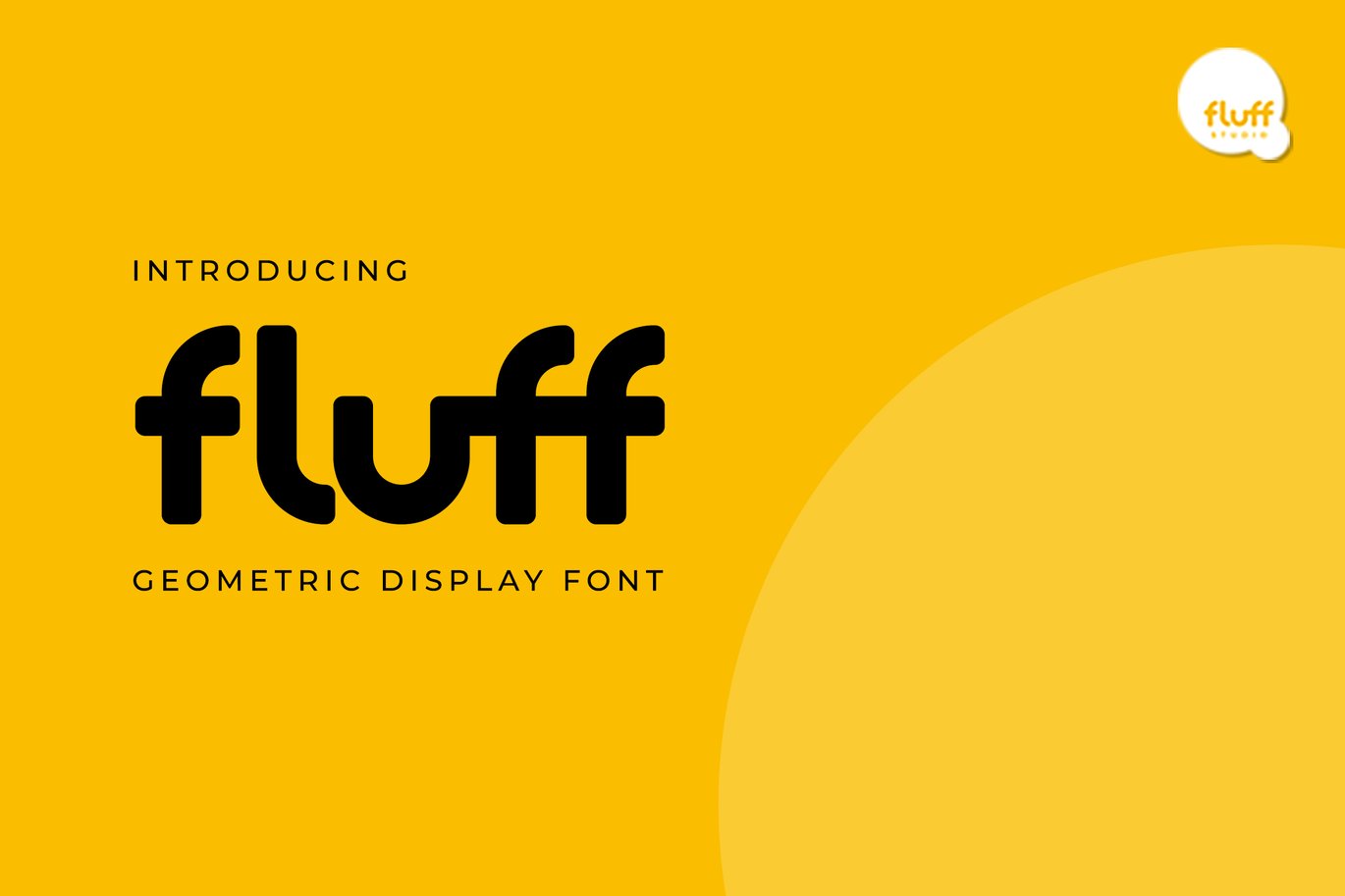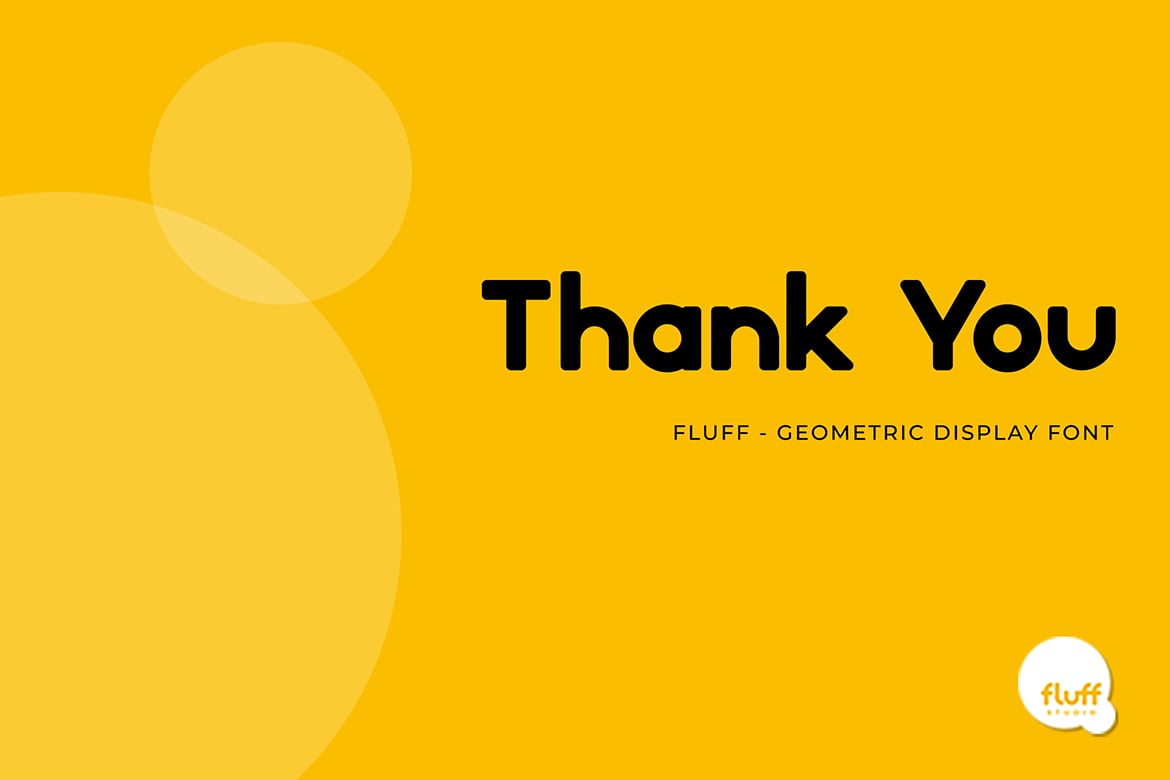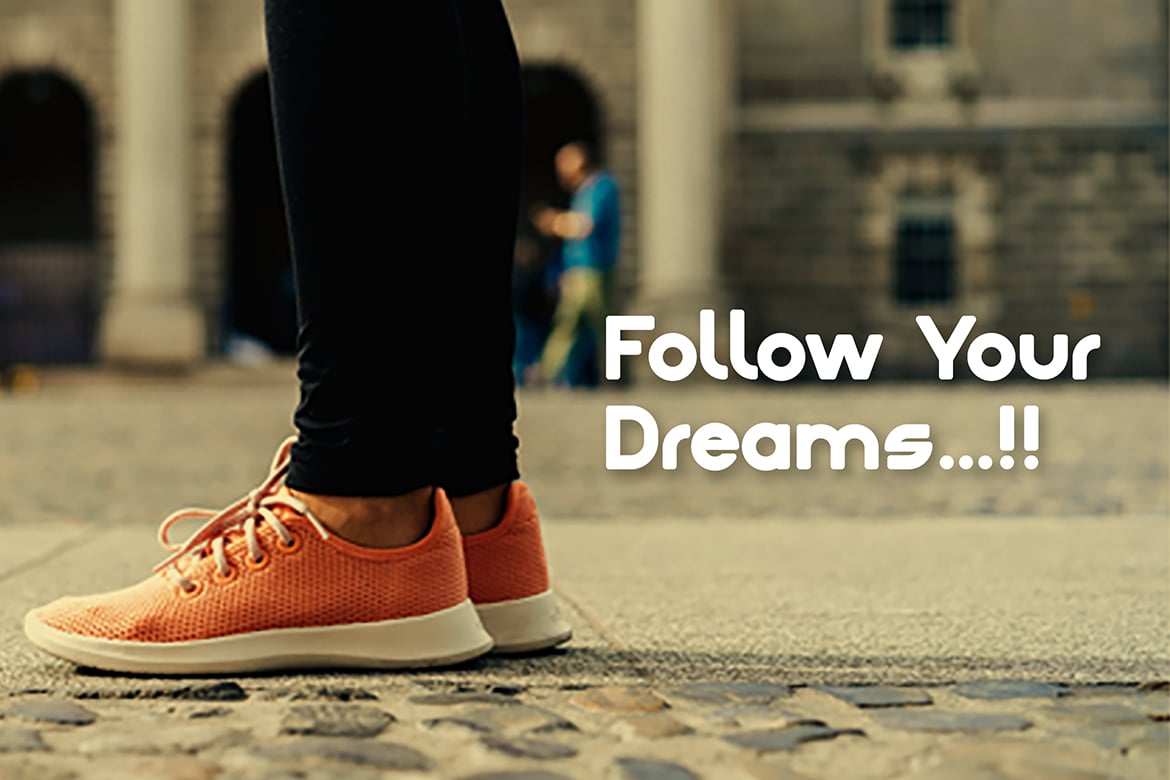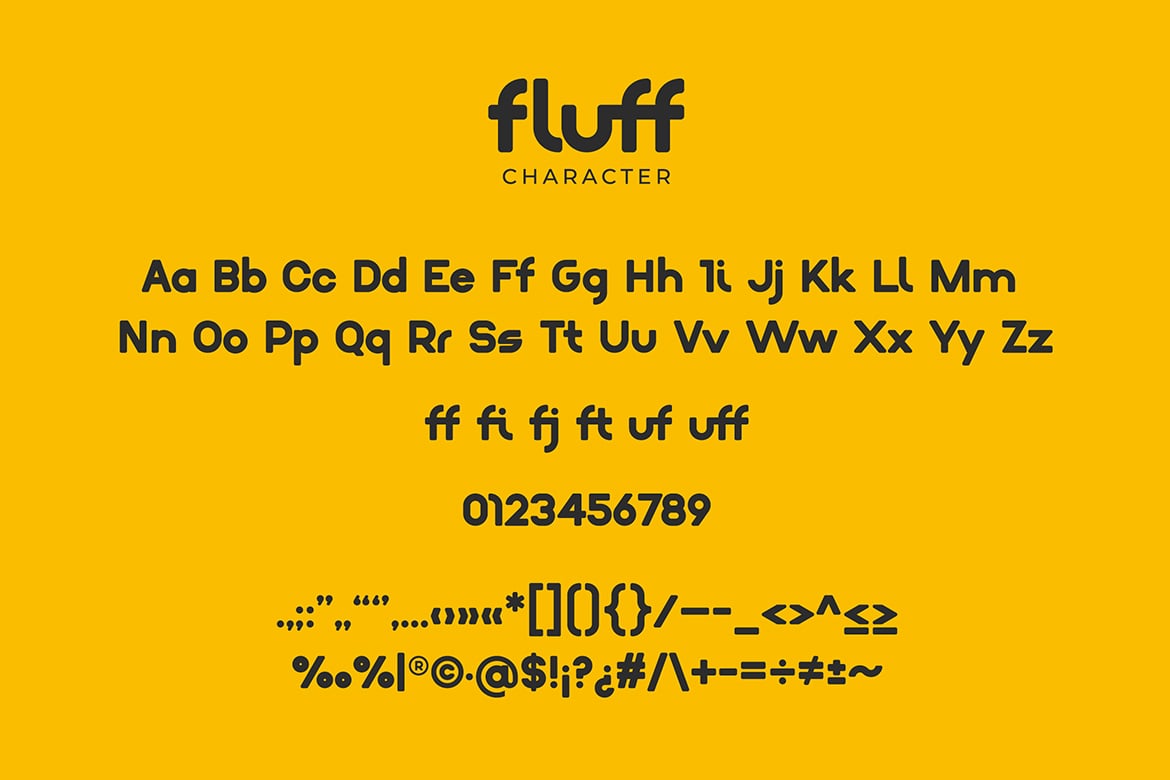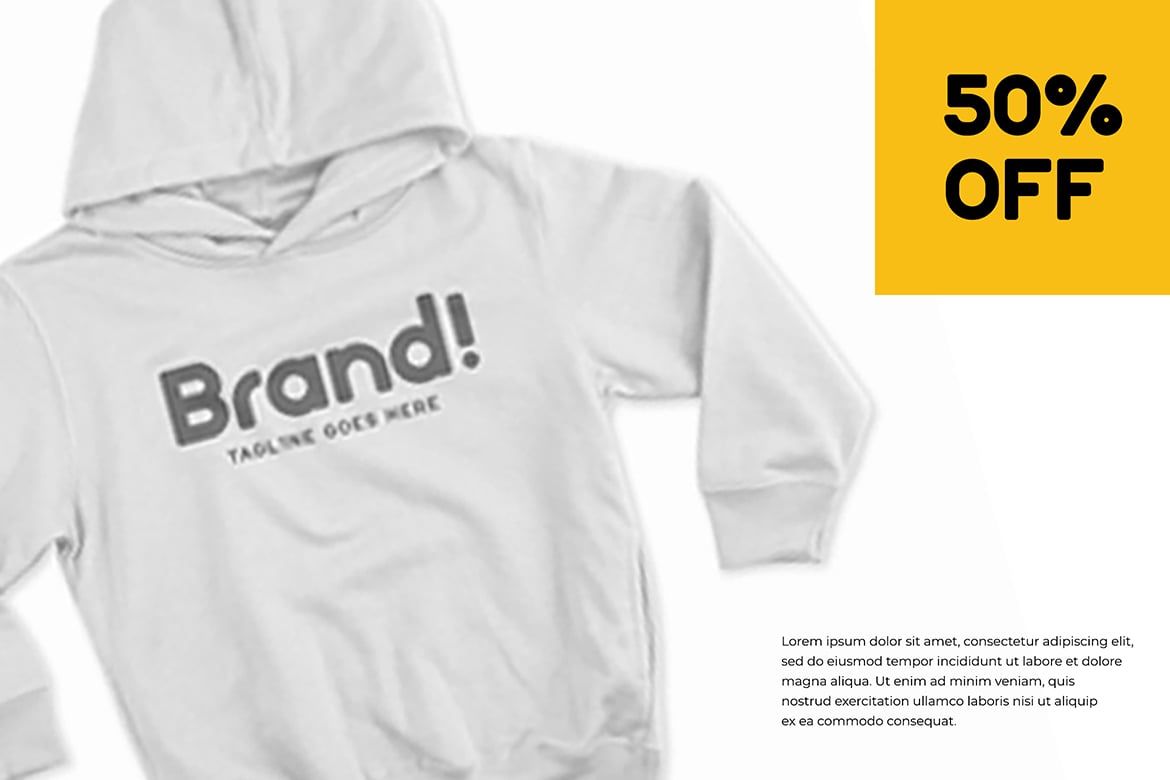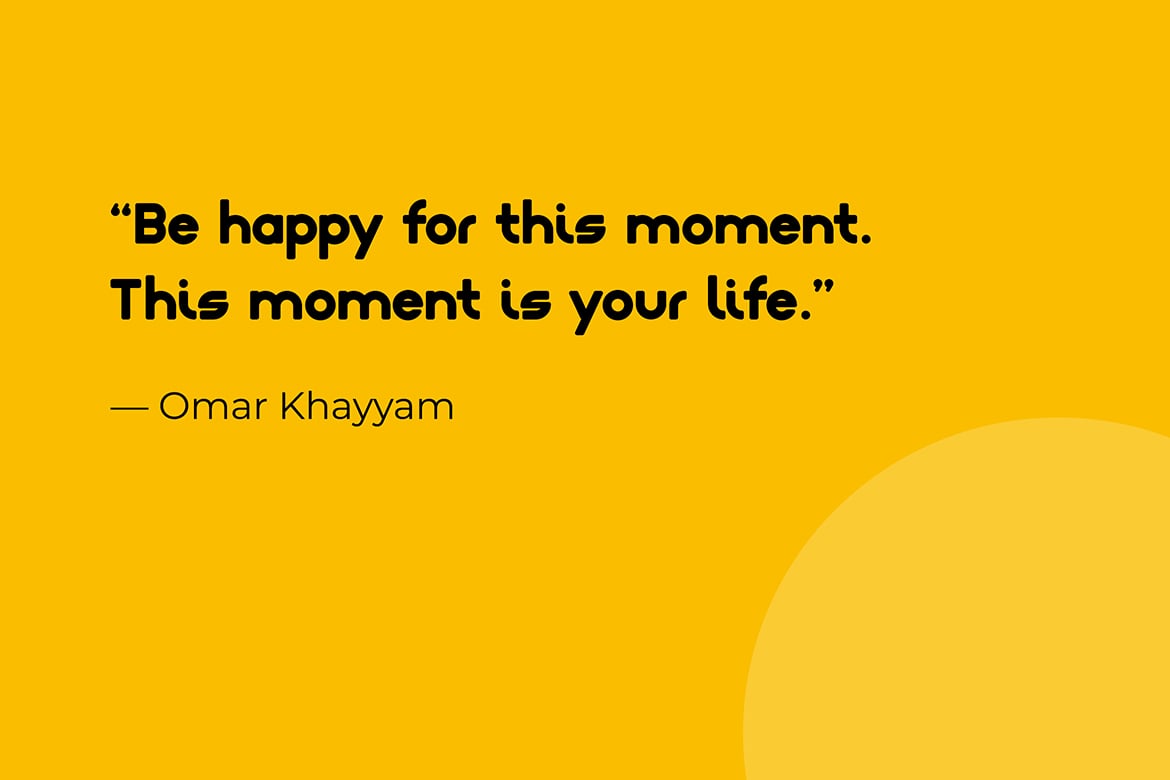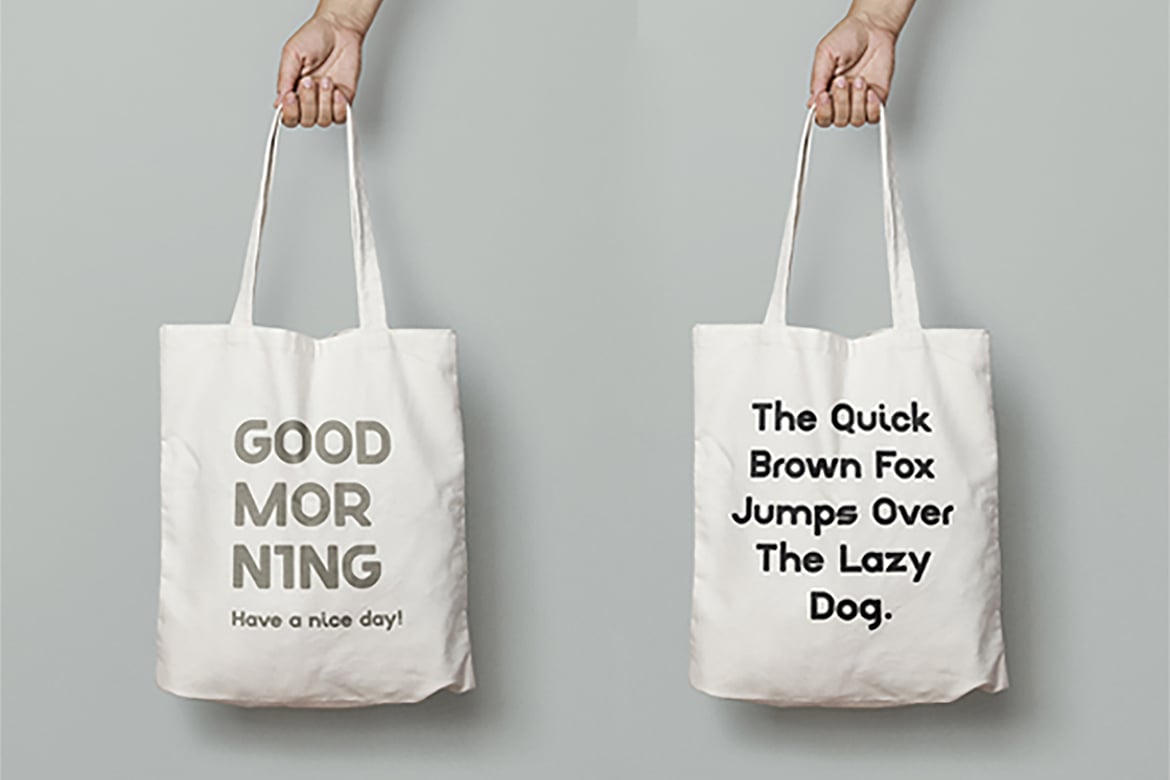
Fluff – Geometric Display Font
Fluff
Geometric Display Font
Geometric-sans serif-display typeface, with a little cute and playful touch. Perfect for Logotype, brands logo, clothing, fashion, creative industry, headline/title on poster, brochure, or packaging, etc.